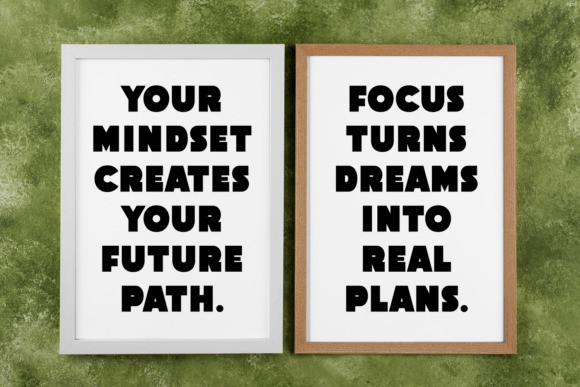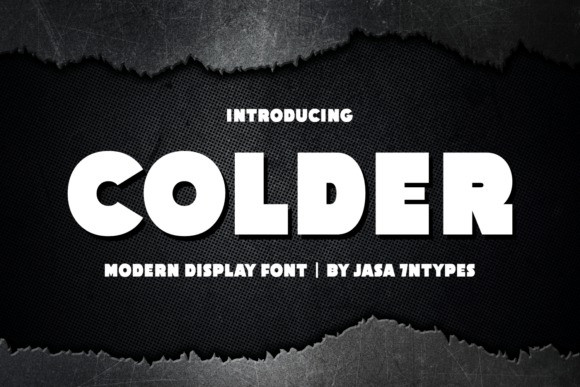
Colder Font
Colder Font is a bold modern display font designed to make an instant impact. With its heavyweight and sharp structure, it brings strength and confidence to your designs, ensuring your message stands out.
Perfect for logos, posters, headlines, sports graphics, merchandise, banners, social media posts, and product packaging, this font combines clarity with boldness. Colder is crafted for projects that demand a strong, modern, and memorable visual identity.